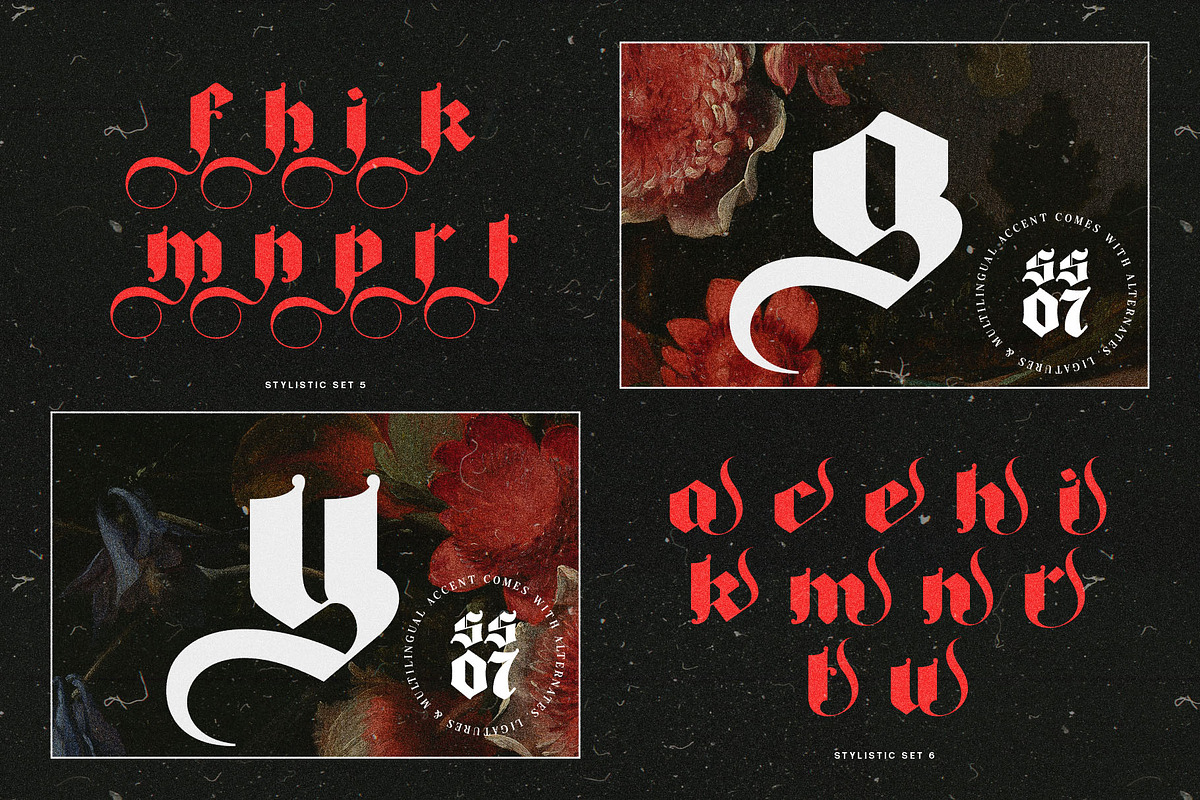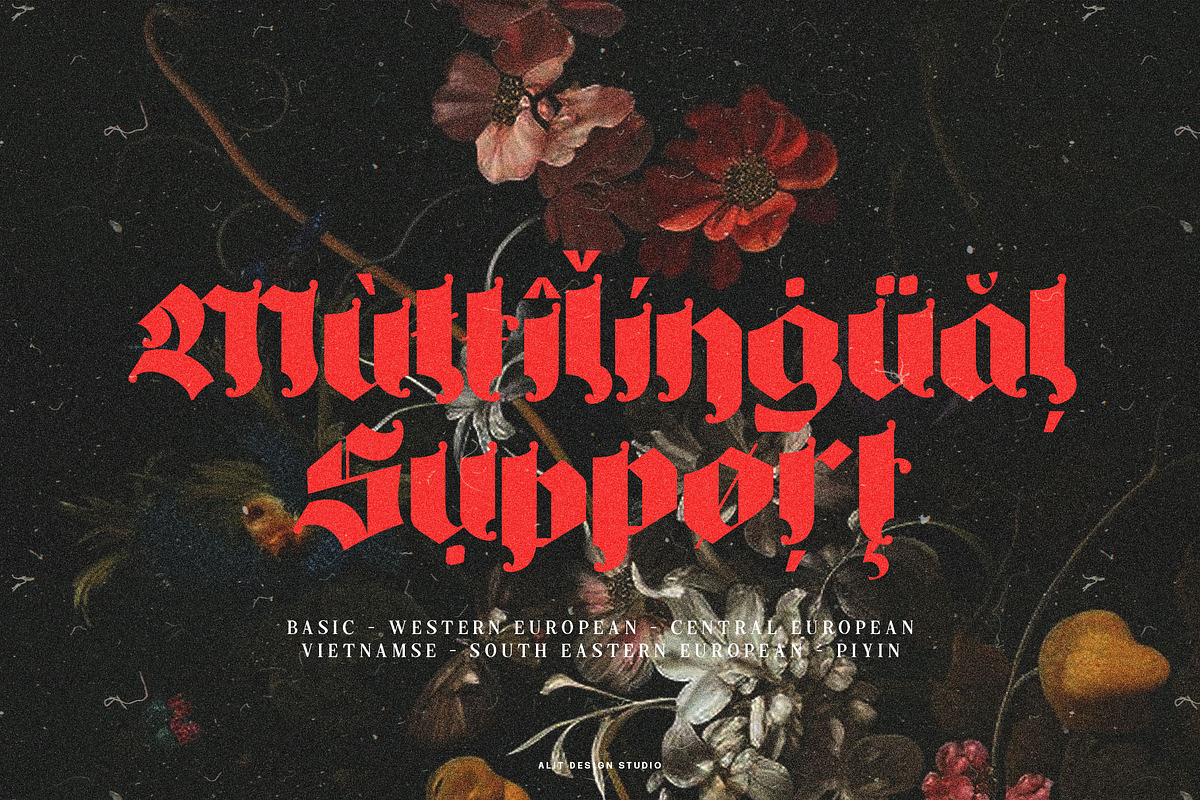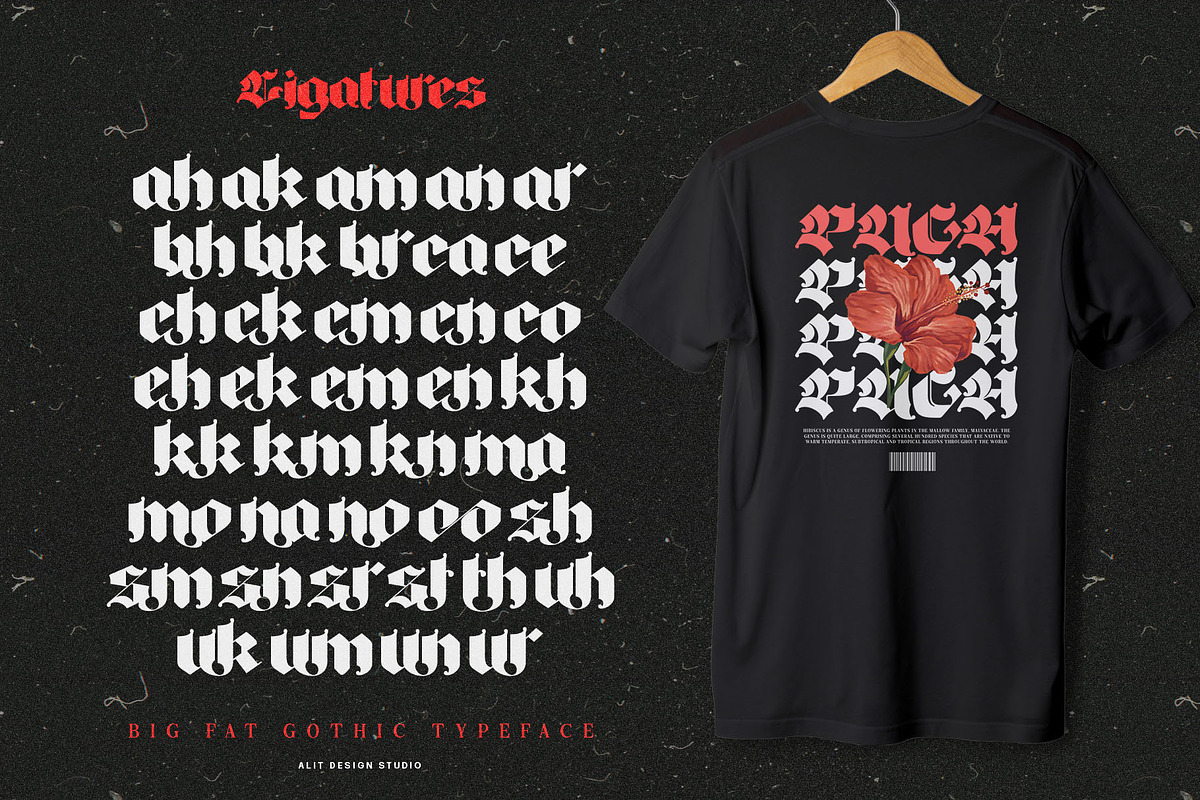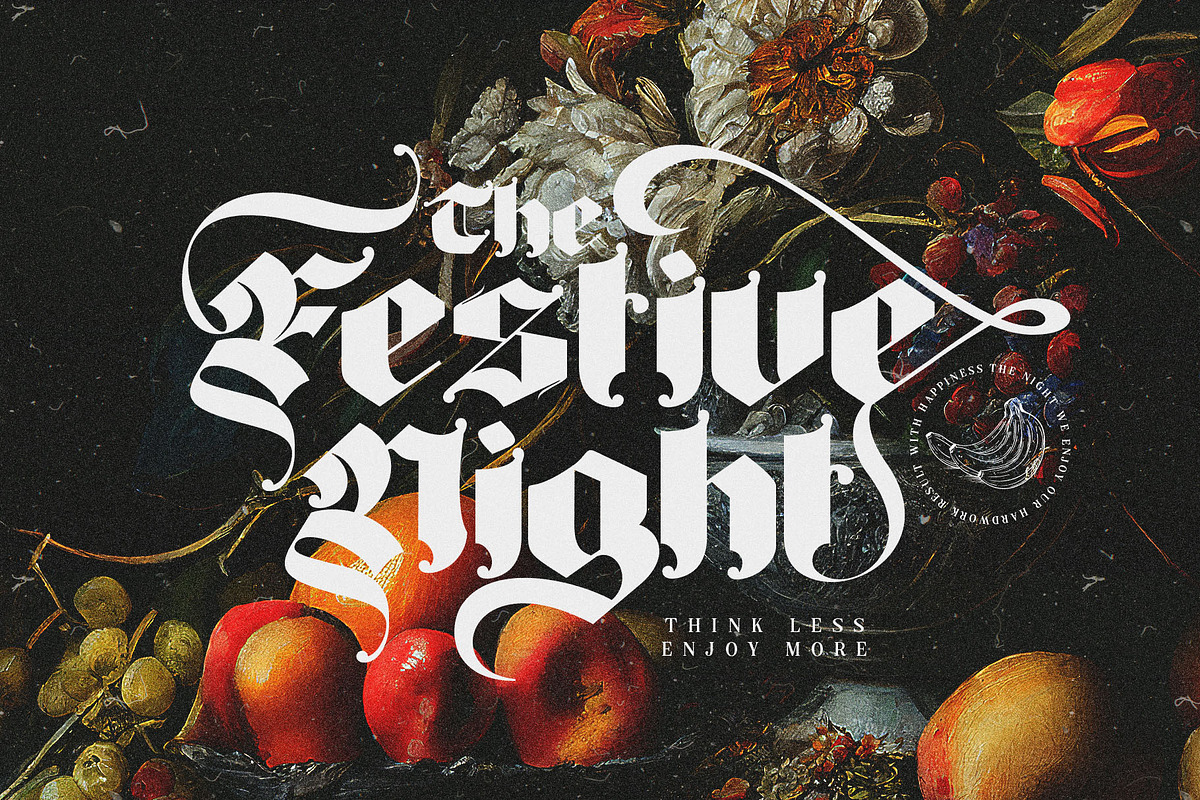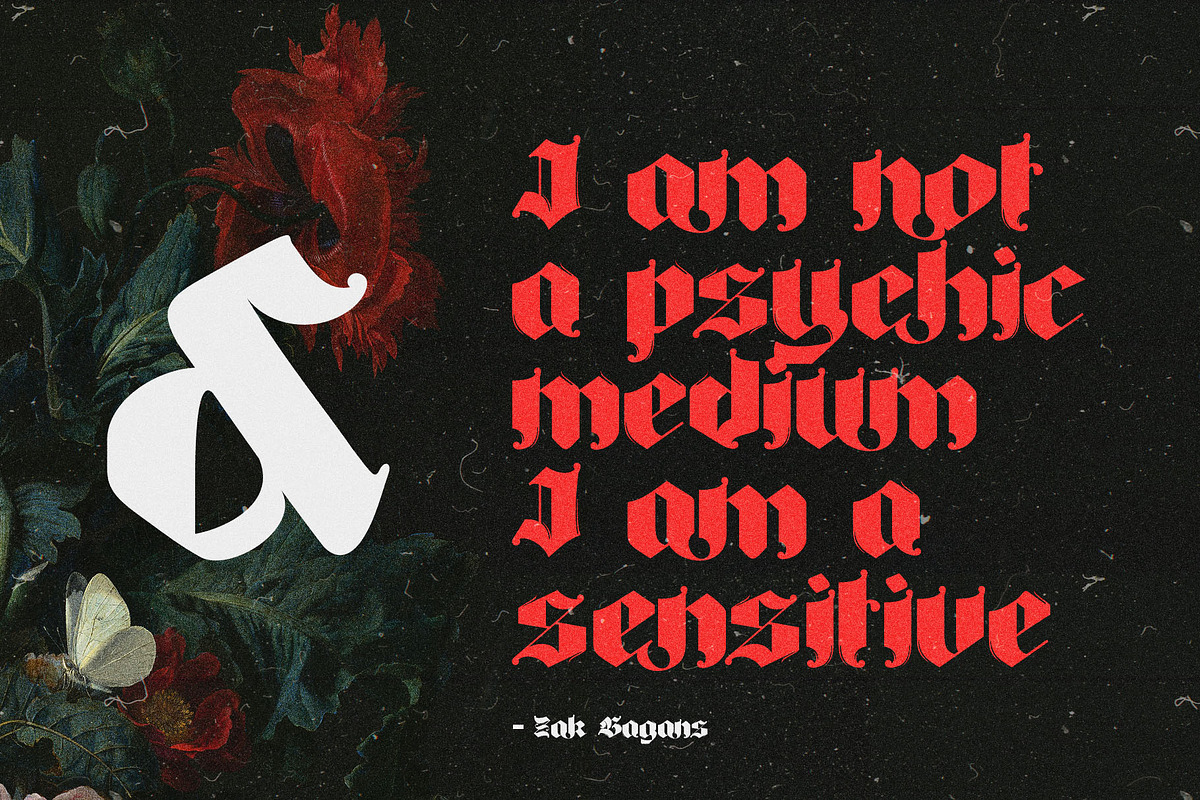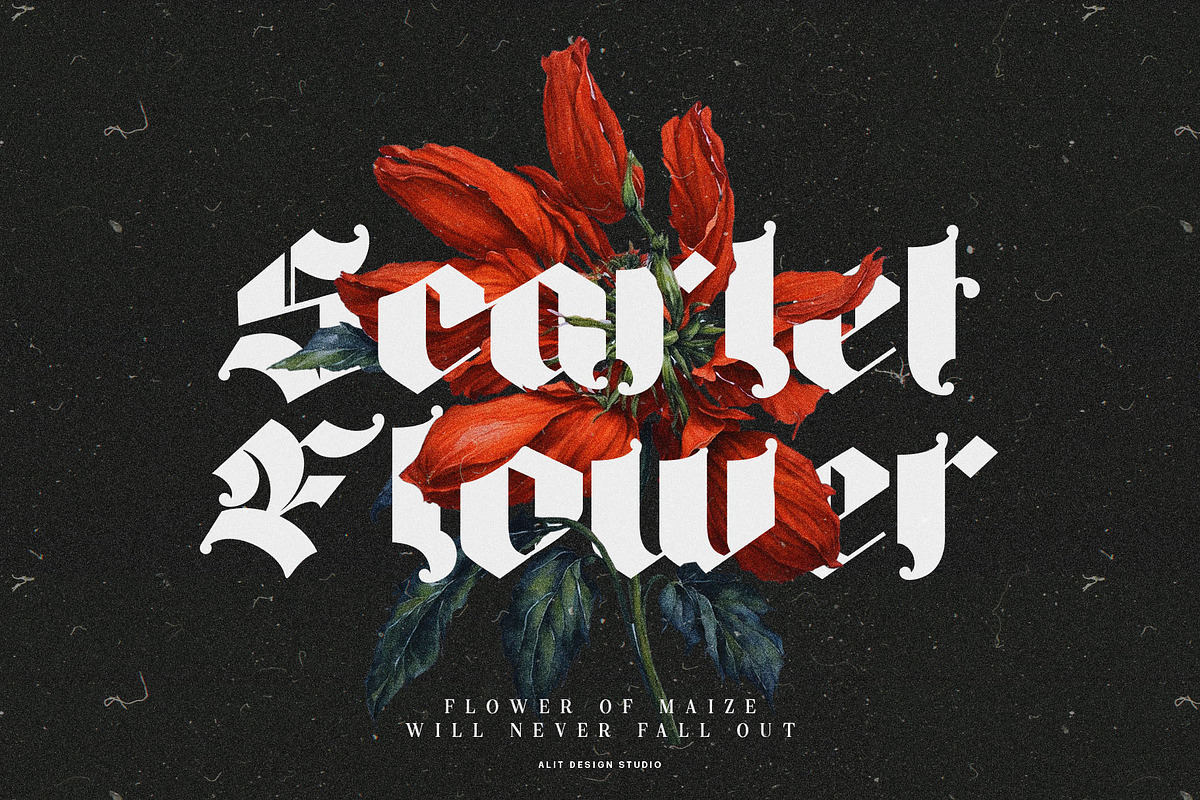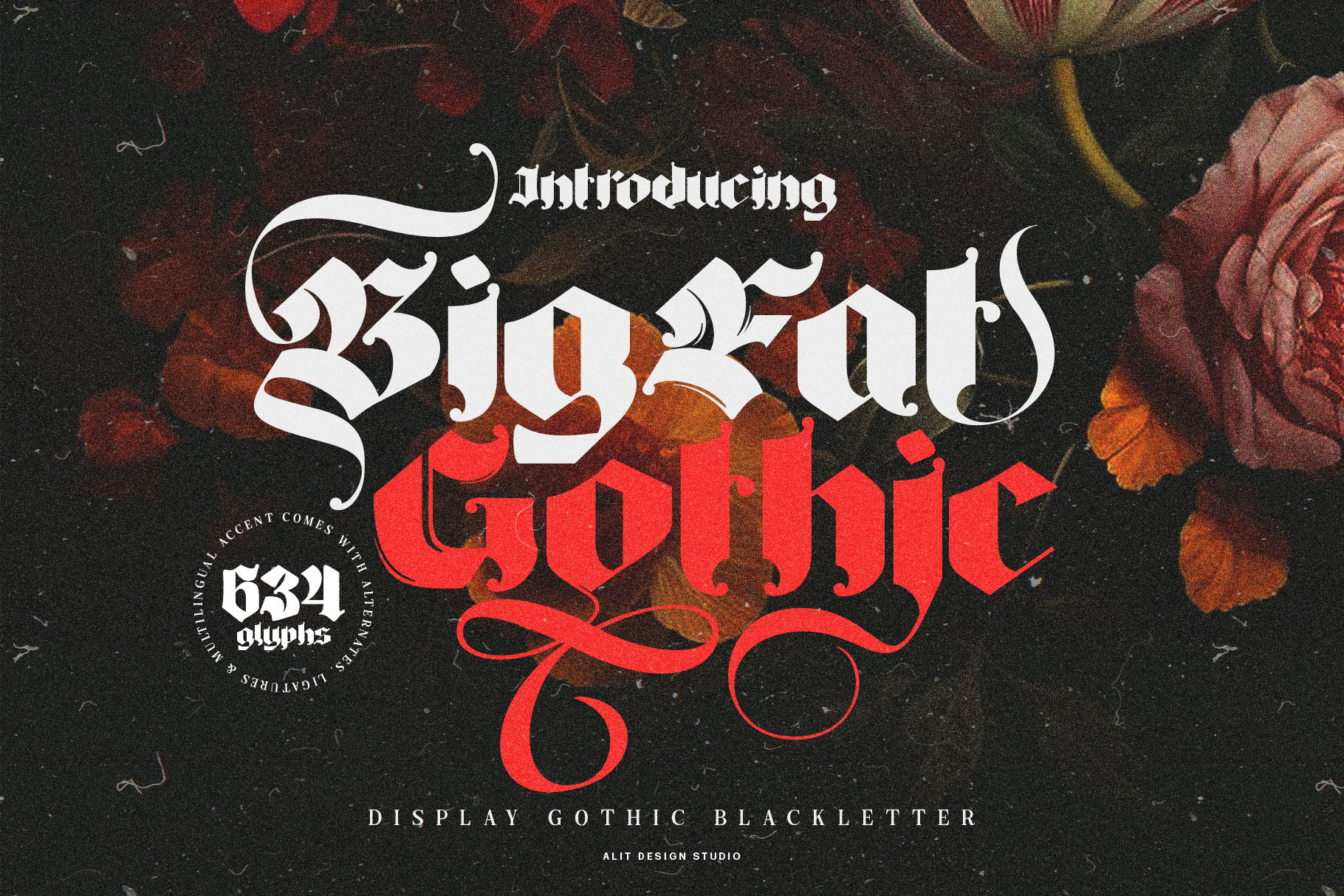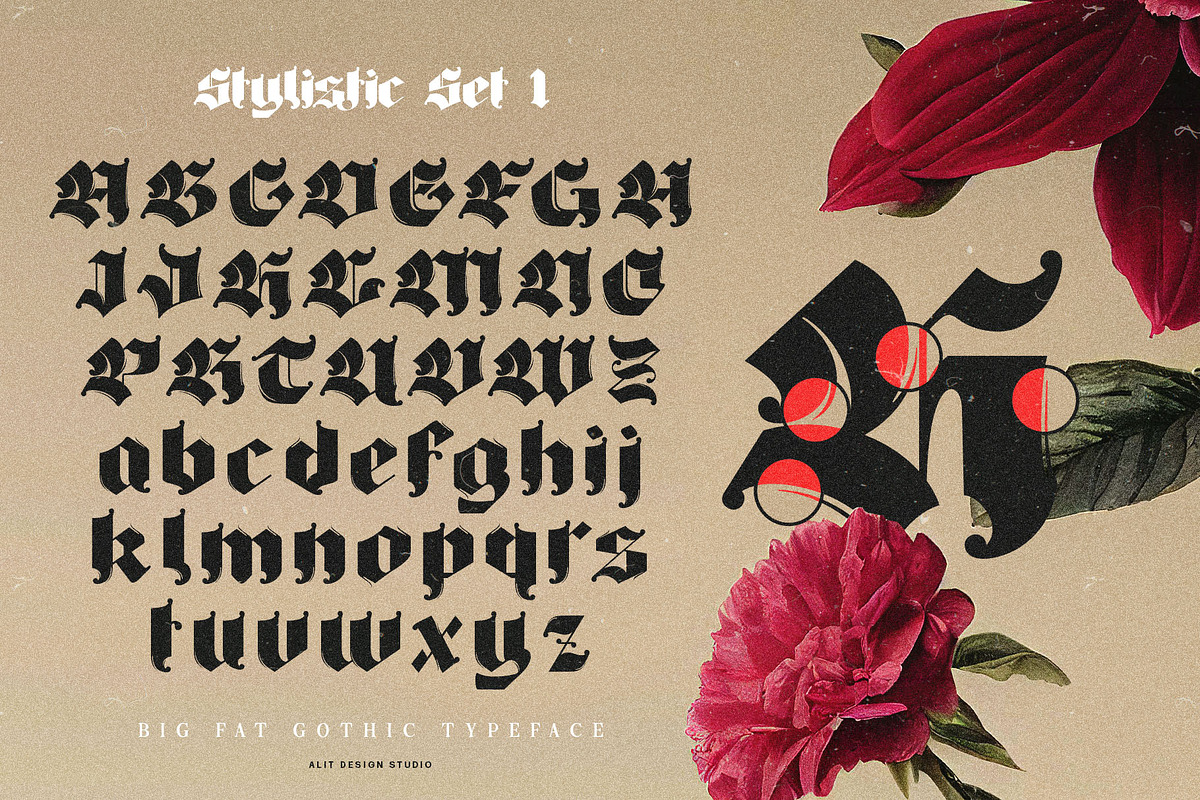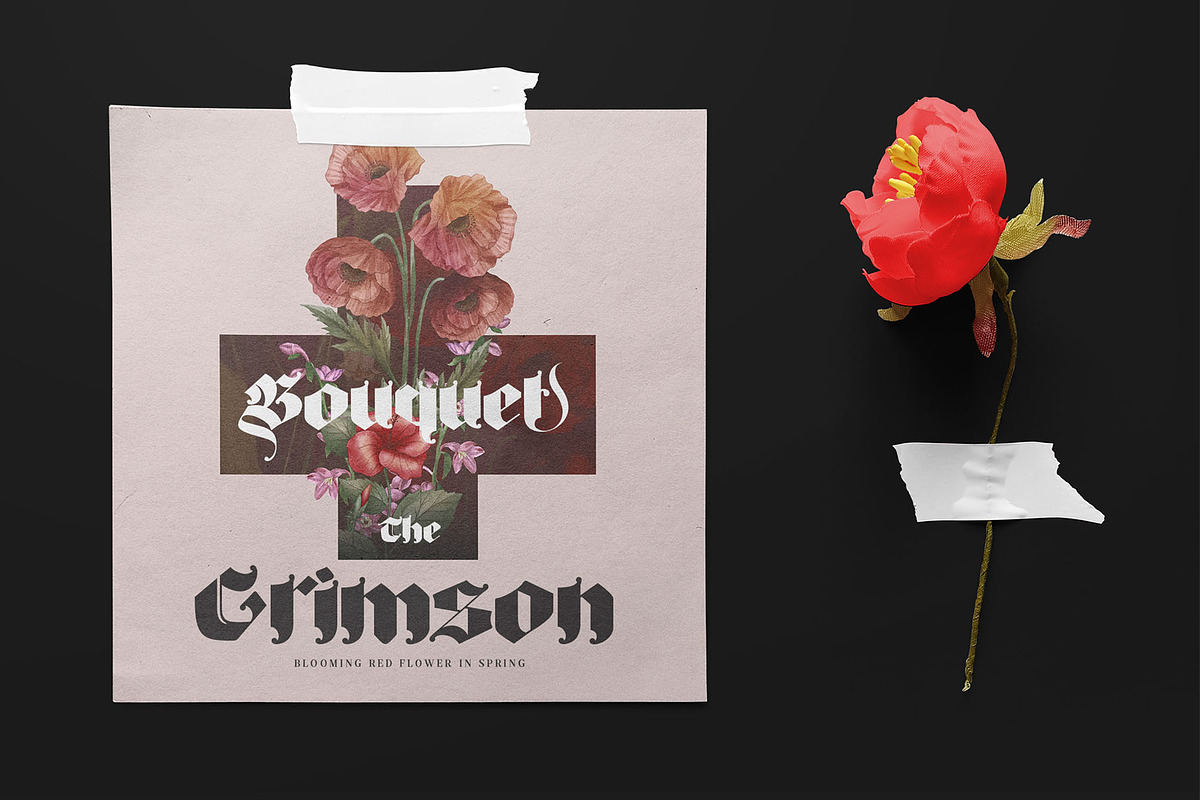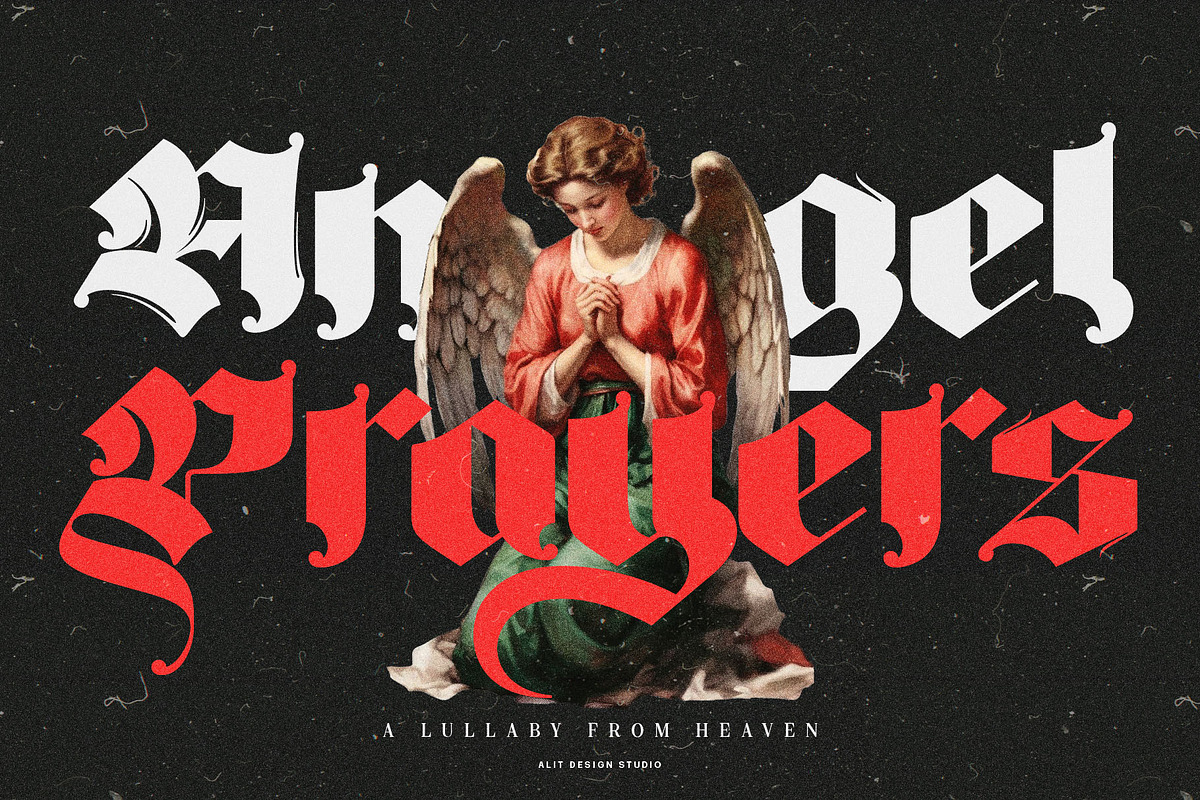
Big Fat Gothic Blackletter Typeface
Introducing "Big Fat Gothic" - a font that commands attention with its bold and robust Blackletter theme. Designed to make a statement, this font is perfect for projects where you want your text to stand out and demand notice.
With its thick and weighty strokes, "Big Fat Gothic" exudes confidence and strength, making it ideal for titles, headlines, and branding materials. The intricate detailing of this font adds a touch of sophistication, ensuring that your text leaves a lasting impression.
But "Big Fat Gothic" isn't just about boldness; it also offers versatility. Packed with swashes, alternatives, and ligatures, this font allows you to customize your text, adding flair and personality to your designs. Whether you're creating a logo, poster, or website, "Big Fat Gothic" provides the flexibility you need to bring your vision to life.
Elevate your designs with the commanding presence of "Big Fat Gothic" and make a bold statement that leaves a lasting impact.